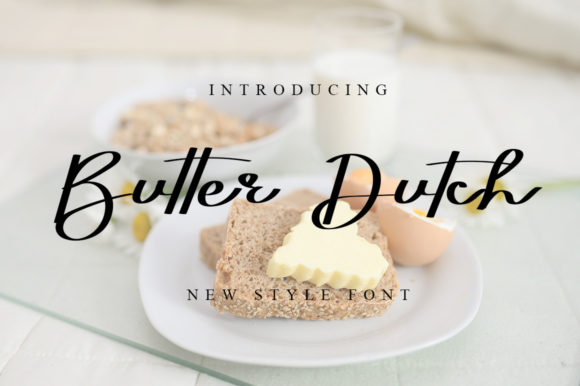
The Butter Dutch Font: A Timeless Handwritten Treasure
I’ll never forget the design project that led me to discover the lovely Butter Dutch font. I was working on a branding project for a boutique bakery, and I was struggling to find the perfect font to capture their warm and inviting personality. That’s when I stumbled upon Butter Dutch, and it instantly became the perfect match. Its unique and beautiful touch brought my design to life, and I knew I had to share it with fellow designers and creative hobbyists.
So, what makes Butter Dutch so special? Here are some things I love about this font:
• ✨ Unique and beautiful handwritten style
• ✅ Stylish alternates and ligatures for added versatility
• 🌈 Perfect for a wide range of design projects, from branding to invitations
• 👍 Highly legible, even at smaller font sizes
Of course, no font is perfect, and Butter Dutch has a few small quirks:
• 🤔 Some users may find the font a bit too ornate for very formal or corporate designs
• ⚠️ Limited availability of certain OpenType features in older software
The Story Behind Butter Dutch
Butter Dutch was designed with love and care by a talented type designer who wanted to create a font that would evoke a sense of warmth and timelessness. The designer’s inspiration came from traditional Dutch typography, combined with a modern twist to make it suitable for a wide range of design projects.
Is Butter Dutch suitable for body text? While Butter Dutch is highly legible, it’s best suited for headlines, titles, and short paragraphs. For longer body text, a more traditional font might be more suitable.
Does Butter Dutch support OpenType features? Yes, Butter Dutch supports a range of OpenType features, including stylistic alternates, ligatures, and glyphs.
Is Butter Dutch available in different weights or styles? Currently, Butter Dutch is available in a single weight, but its versatility and range of OpenType features make it suitable for a wide range of design applications.